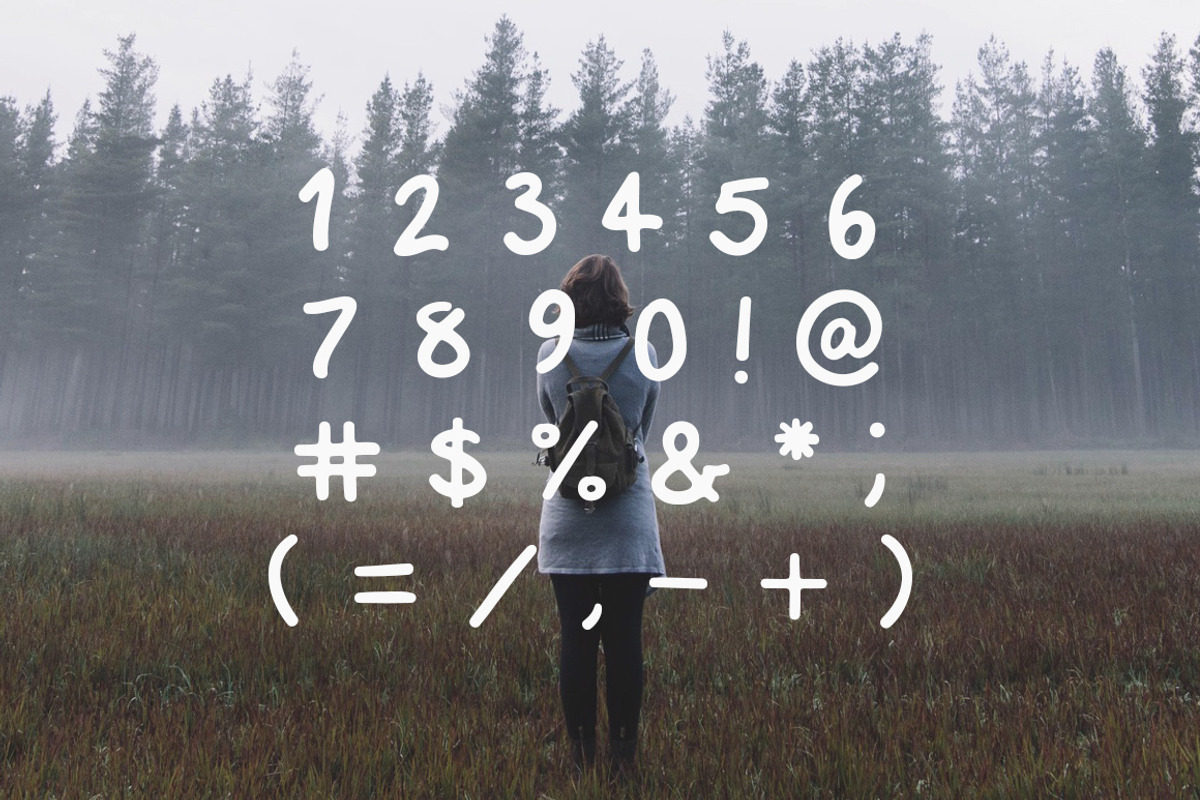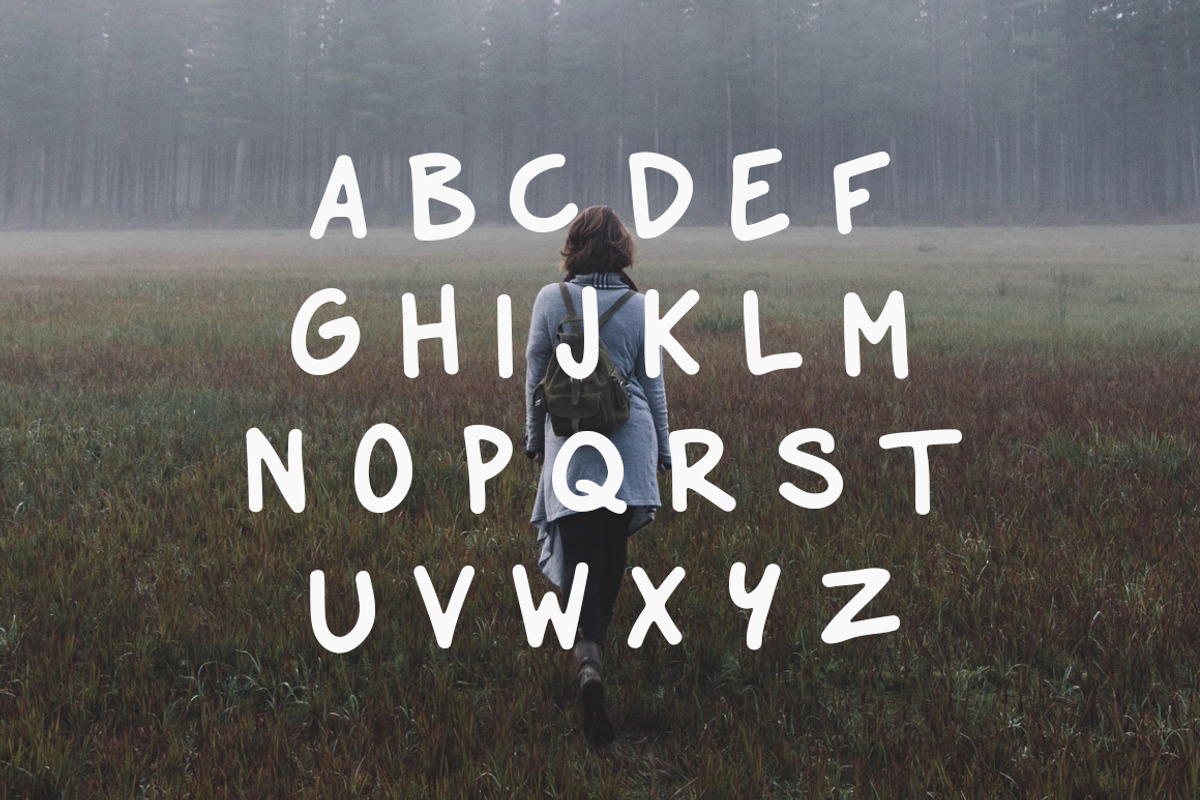
Sunday Morning - Sans Serif Font
Sunday Morning - Sans Serif Font by RyanBowlesDesign is a font selected for branding, posters, packaging, typography.
- Sunday Morning comes with uppercase characters, punctuation glyphs and numerals.
Why Sunday Morning - Sans Serif Font is worth a look
Sunday Morning - Sans Serif Font by RyanBowlesDesign fits naturally into Branding, posters, packaging, typography.